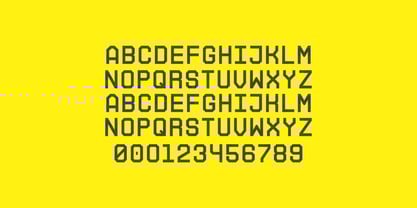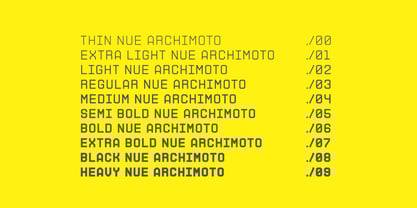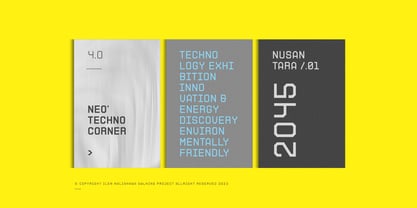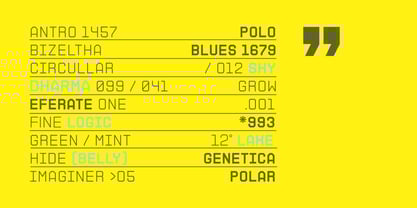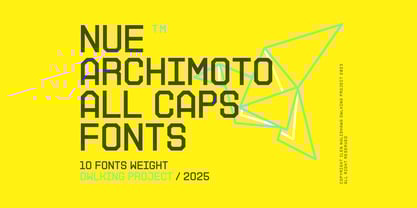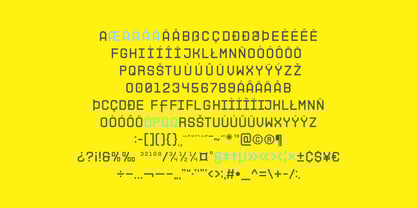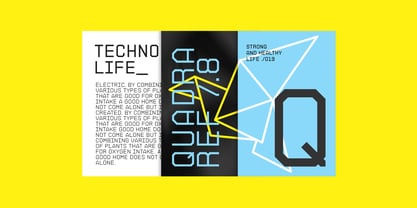
Nue Archimoto
par Owl king project
La famille de polices Nue Archimoto a été conçue par Darhilen et publiée par Owl king project. Nue Archimoto contient 10 styles et options de package familial.
Nue Archimoto is a refinement of the previous san serif font form to be simpler, still with a technological style, nue archimoto can also be applied in the form of modern design and can even be used for retro design.